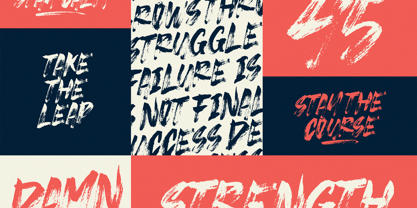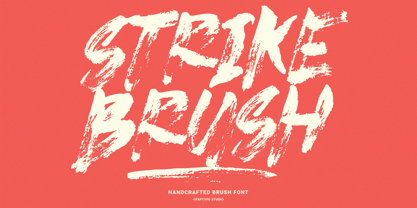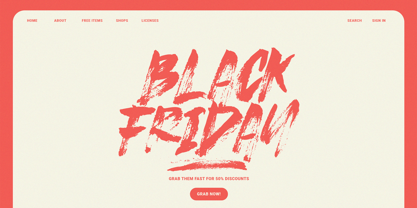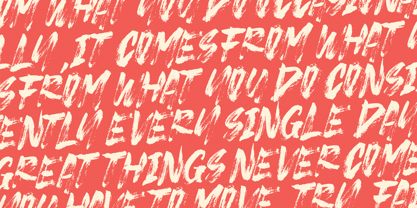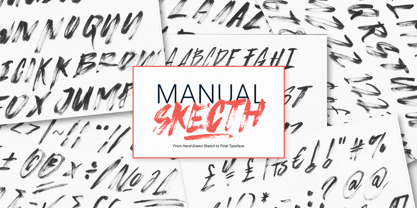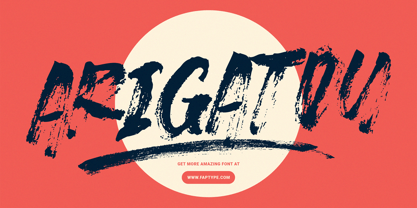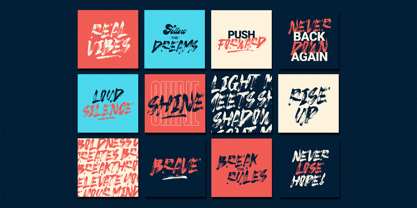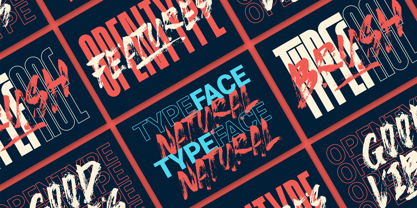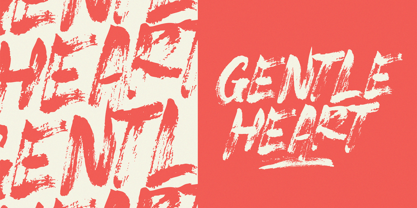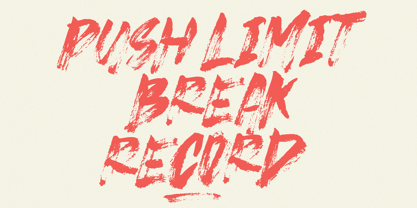
Strike Brush
by Ferry Ardana Putra
The Strike Brush Font Family was designed by Ferry Ardana Putra and published by Ferry Ardana Putra. Strike Brush contains 1 styles. More about this family
Strike Brush is a bold and expressive dry brush font, handcrafted with a real Kuretake brush pen. Every stroke was written by hand, then carefully scanned and digitized to preserve its raw, natural texture — delivering a truly authentic brush feel in every letter.
This font is perfect for creative projects that demand energy and character. Whether you’re designing branding materials, t-shirt graphics, music merchandise, posters, or bold headlines, Strike Brush adds a handcrafted edge that stands out in any context.
The font includes uppercase letters with stylistic alternates, punctuation, symbols, dynamic swashes, and multilingual support. With its natural flow and powerful brush strokes, Strike Brush is ready to bring impact and personality to your next design.
Strike Brush Features:
• A full set of Uppercase and Lowercase
• Numbers and Punctuation
• Multilingual Language Support
• PUA Encoded Characters
• OpenType Features
• +270 Total Glyphs
• +37 Dry Brush Swashes included! (You can access the ornaments in Photoshop by navigating to Window > Glyphs)
Designers: Ferry Ardana Putra
Foundry: Ferry Ardana Putra